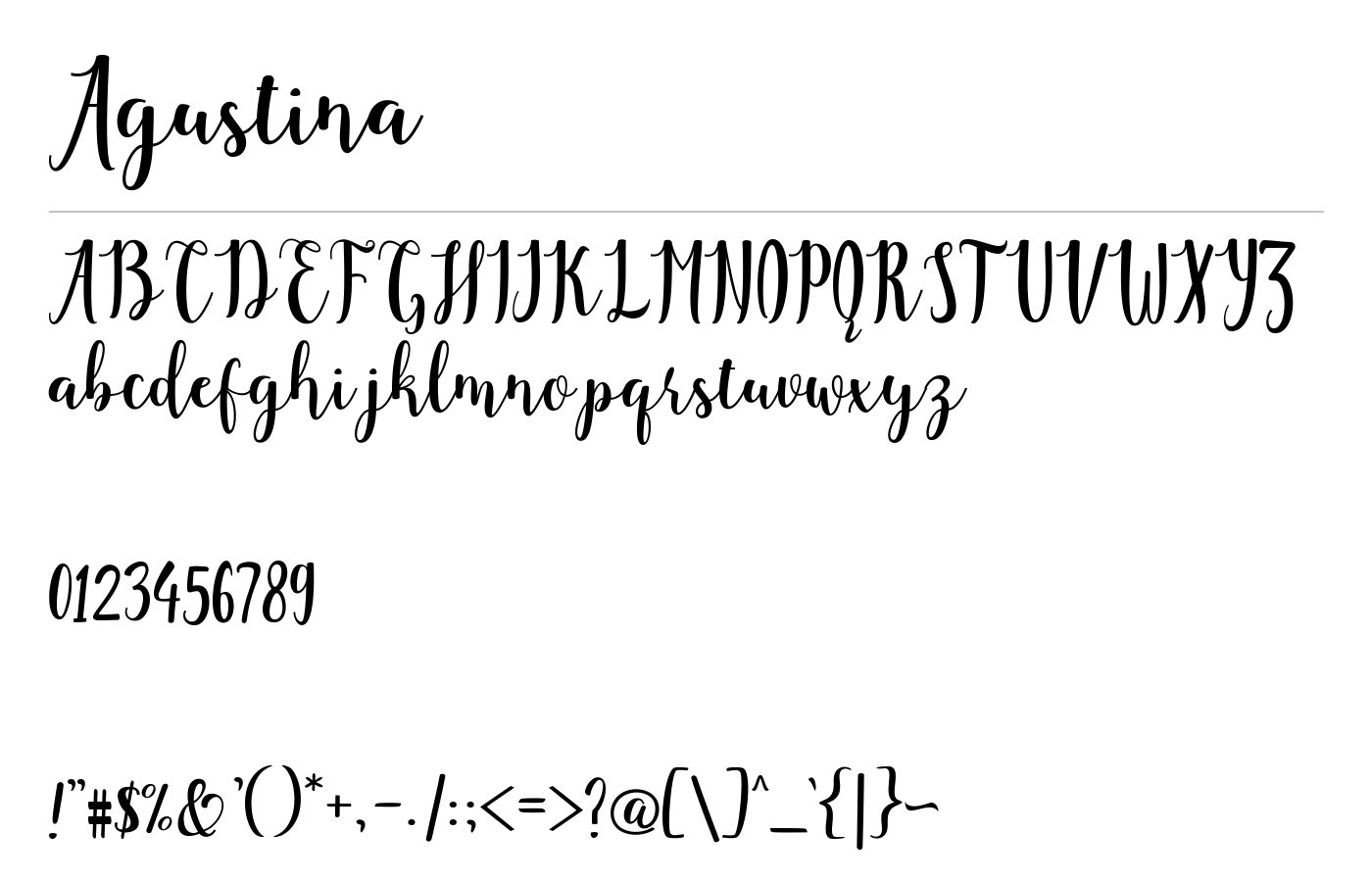
Agustina is an elegant script font featuring fluid, hand-lettered strokes with charming, slightly whimsical details in its uppercase and lowercase forms. It combines slender, consistent weight with unique, curly terminals and a natural, airy rhythm, making it ideal for sophisticated branding, invitations, and feminine design projects that require a graceful yet approachable look. This font works beautifully in headlines and decorative text where a personal, artistic touch is desired.
Agustina Font
About Agustina Font
| Font family | Agustina Font |
| Designer | Kurniadi Saputra |